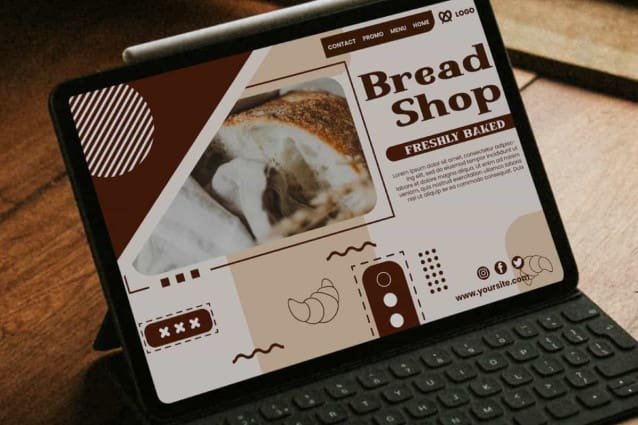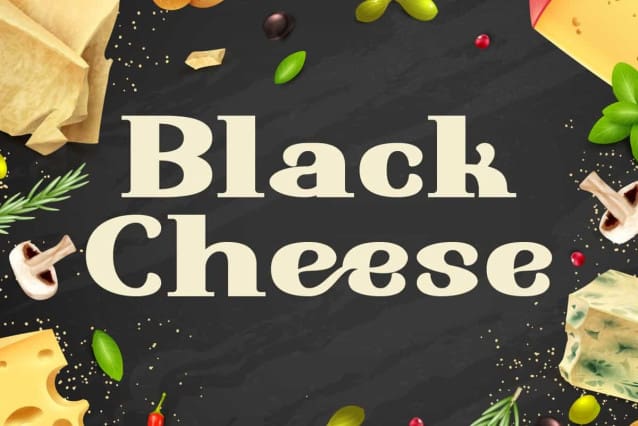
Black Cheese Font
Black Cheese Font is a classic yet playful and adorable serif display font. This font is still easy to read even though it has fat and cute letter characters. It would be good for brand logo, headline, invitation, magazine cover, menu, poster, product packaging, screen print, signage, social media posts, stationery, sticker, website, and more!
Black Cheese Font includes full set for Uppercase and Lowercase Basic Characters, Numbers, Punctuation and Symbols. This font also contain Ligature and Alternate characters to create the perfect font so that it will be suitable for advertisement, bakery, beauty product, cafeteria, crafts, fashion, photography, restaurant, spa, travel agency, etc.